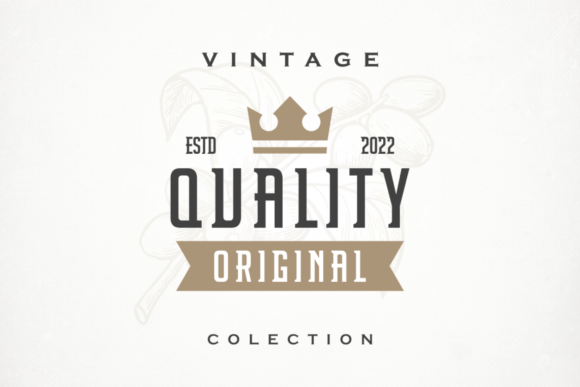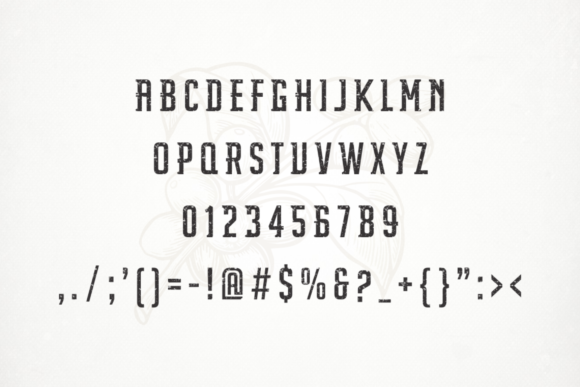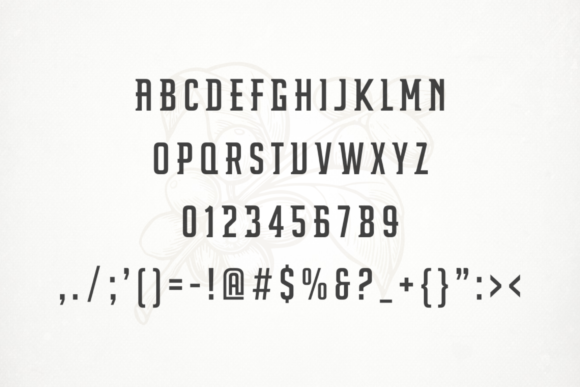
Darlothes Font
DARLOTHES FONT SPECIMEN
Introducing Darlothes Font, a modern typeface that combines boldness and authenticity in a slab serif design. This versatile font is well-suited for various branding projects, including logos, t-shirt printing, exports, and more. With its outstanding appearance, Darlothes Font is sure to make a strong visual impact across a wide range of contexts.
Darlothes Font’s bold and authentic slab serif design sets it apart as a font that commands attention. Its strong letterforms exude confidence and create a sense of reliability, making it an ideal choice for branding projects. Whether it’s for a logo design that needs to make a bold statement or t-shirt printing that requires an eye-catching typography, Darlothes Font adds a touch of boldness and authenticity to your projects.
The versatility of Darlothes Font ensures that it looks outstanding in various contexts. Whether you’re working on a corporate brand, a casual clothing line, or an export business, Darlothes Font adapts seamlessly to your design needs. Its clean and balanced letterforms bring a modern touch while maintaining legibility and visual impact.
Darlothes Font’s authentic style allows it to add a sense of uniqueness and originality to your branding projects. It captures attention and creates a memorable impression, helping your brand stand out from the competition. Darlothes Font brings a contemporary twist to the classic slab serif genre, making it suitable for both modern and traditional aesthetics.
In addition to branding projects, Darlothes Font’s versatility extends to various other design applications. It can be used for headlines, subheadings, body text, and more, allowing for consistent typography throughout your designs. Darlothes Font’s clean and bold appearance ensures that your message is delivered with clarity and impact.
In summary, Darlothes Font is a bold and authentic slab serif font that adds a modern touch to your branding projects. Its outstanding appearance and versatility make it suitable for logos, t-shirt printing, exports, and more. Embrace Darlothes Font and let it elevate the visual impact of your designs with its boldness and authenticity.